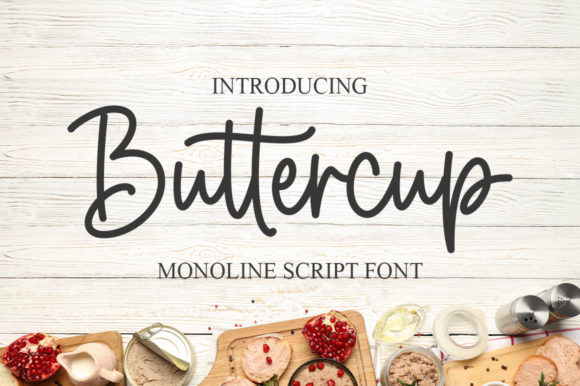
Step into the world of Buttercup Font, a charming script with a delicate and flowing aura. Immerse yourself in its intricate loops and elegant curves, inspired by the gracefulness of handwritten letters. Designed by the talented Graphix Line Studio, Buttercup Font is the epitome of country chic, exuding a sweet and joyful vibe that will bring warmth to any design project.
With its romantic and personalized touch, Buttercup Font is the perfect choice for capturing the essence of special moments. Imagine using it to create enchanting wedding invitations, heartfelt cards, or any other design that requires a touch of intimate charm. Its graceful strokes will add a touch of elegance and sophistication to your words, making them stand out beautifully.
But why settle for ordinary when you can have extraordinary? Buttercup Font is more than just a font; it's a gateway to a world of creativity and self-expression. Unleash your inner artist and let your imagination run wild as you explore the endless possibilities it offers. From whimsical and playful designs to chic and sophisticated layouts, Buttercup Font is the ultimate tool to elevate your designs to new heights.
Don't let your creative projects be confined by mediocrity. Embrace the magic of Buttercup Font and embark on a journey of artistic exploration. Let its delicate strokes guide you towards creating masterpieces that capture hearts and leave a lasting impression. Experience the transformative power of Buttercup Font today and see your designs bloom with beauty and grace.